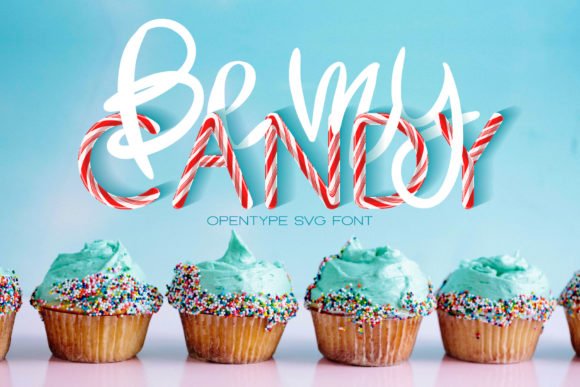
Introduction to Be My Candy Font
The Be My Candy is a striking svg font with classic red and white twisted stripes.
Each symbol includes shadows and glossy highlights for a realistic candy texture It’s Indispensable for Christmas design.
Be My Candy Font offers exceptional quality and versatility, making it a valuable addition to your design toolkit. Whether you’re creating for personal projects or commercial use, Be My Candy Font delivers professional results.